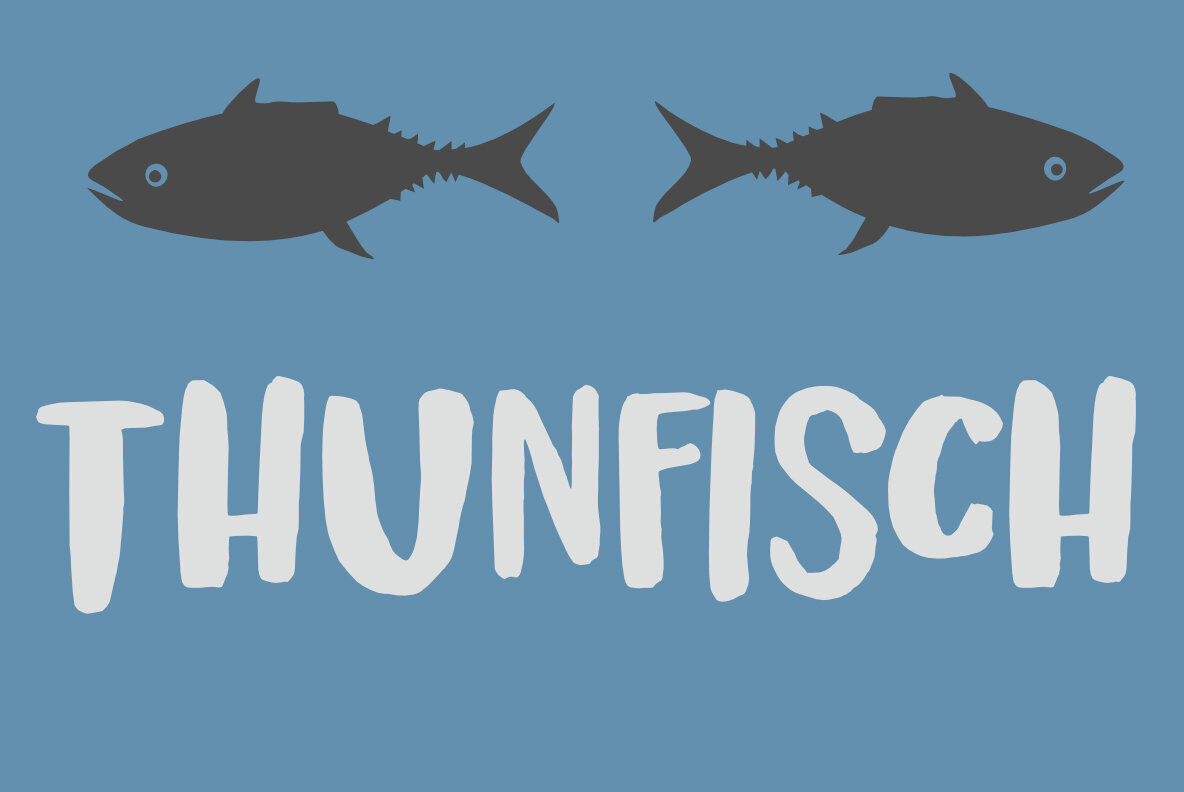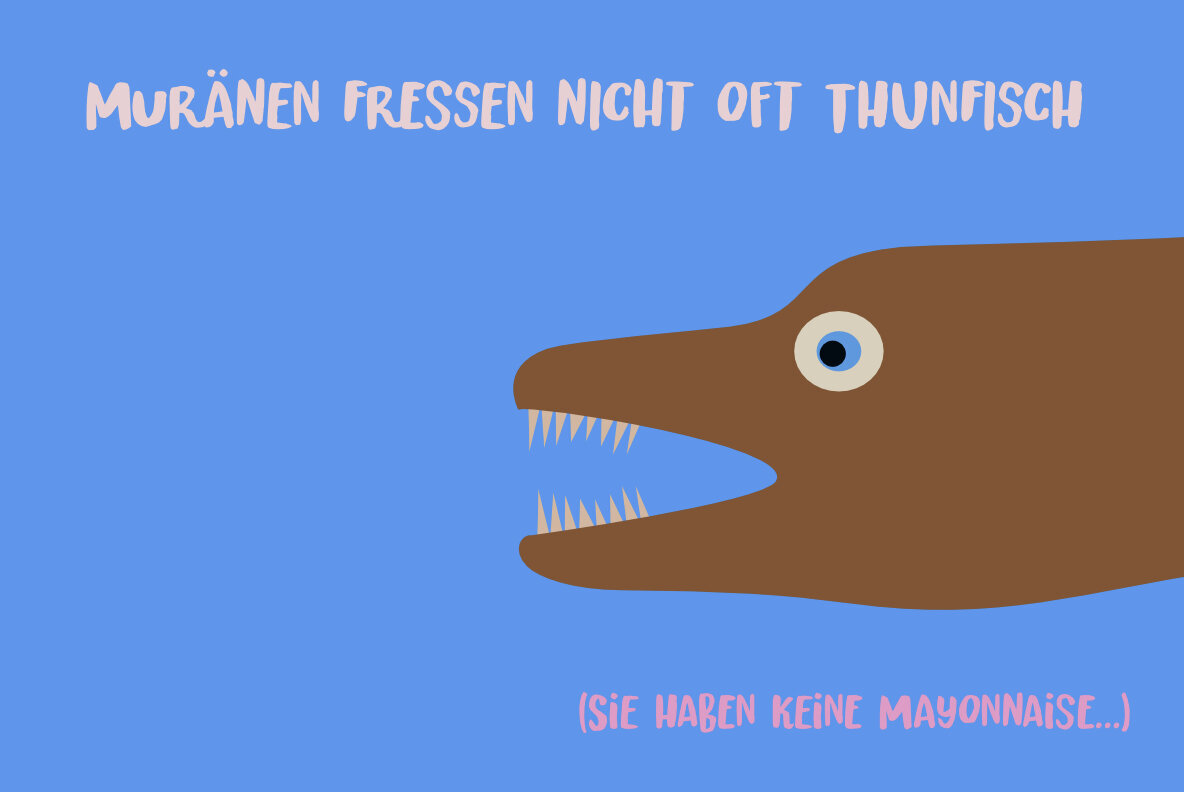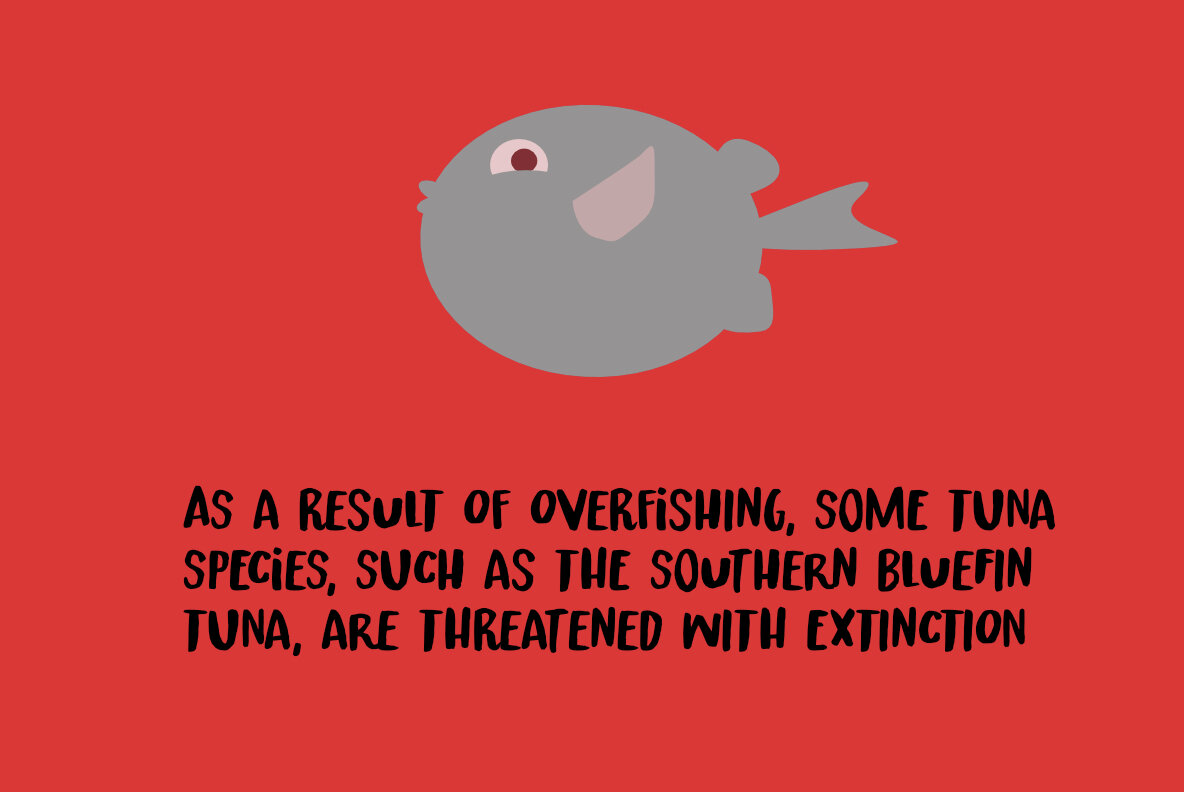
Thunfisch Font
Thunfisch Regular
Thunfisch Italic
\"Thunfisch,\" which means tuna in German, is an intriguing name for a font crafted by a Dutch typographer. Despite the unique name, this typeface stands out for its artistic origins and global appeal. Created with Chinese ink and a small brush, Thunfisch captures the fluidity and elegance of hand-drawn characters, offering a versatile addition to any designer's toolkit. Whether you're designing a menu, creating a logo, or crafting a unique headline, Thunfisch provides a distinct and creative touch to your work.Thunfisch Typeface